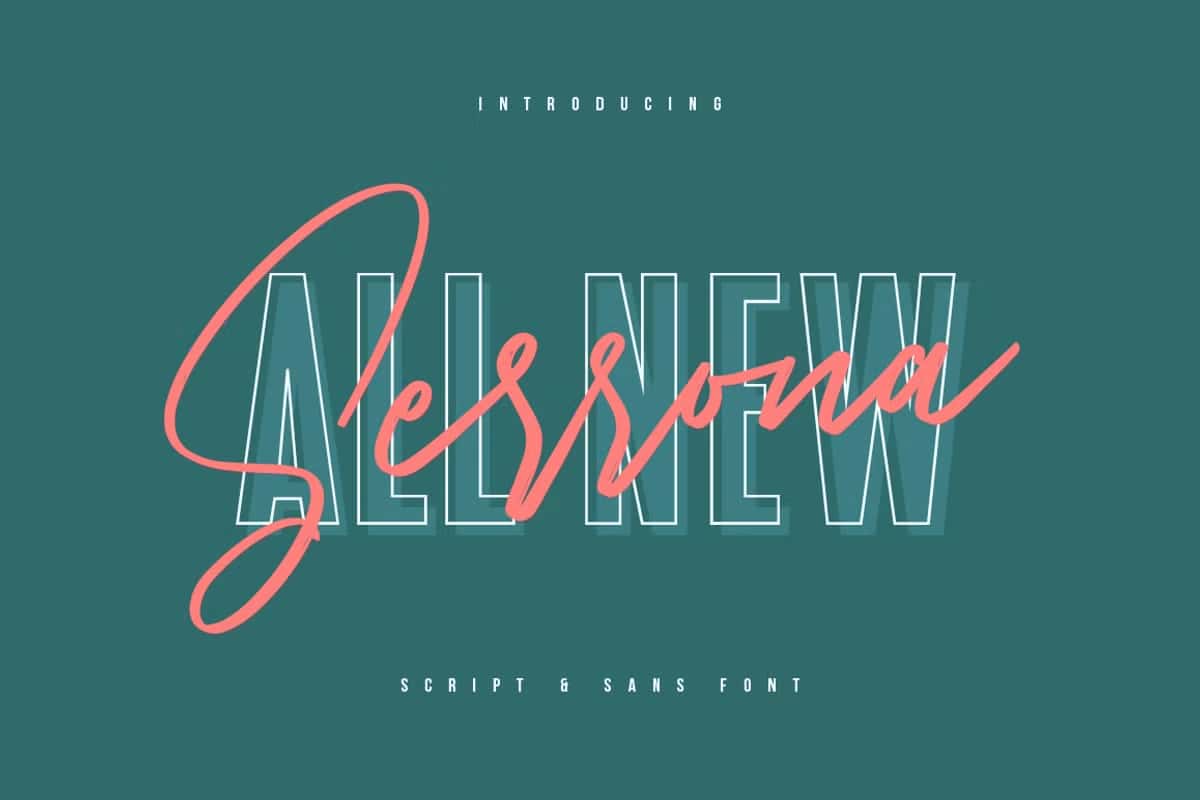
Serrona Script Font: A Handcrafted Brush Style for Professional Design
Serrona Script Font brings the perfect balance of handcrafted artistry and refined typography. Designed with the natural movement of real brush strokes, this font delivers a signature look that adds authenticity and style to any creative project. If you want to upgrade your visual communication with a handwritten touch, Serrona Script offers exactly what you need.
Every letter in Serrona Script is drawn with precision and intention, capturing the organic rhythm of hand lettering. This characteristic makes the font suitable for designers, entrepreneurs, branding specialists, and anyone looking to create designs with a unique personality. Serrona Script enhances design projects with elegance and a modern handwritten expression that instantly attracts attention.
Why Choose Serrona Script?
Serrona Script Font stands out because it provides a natural and flowing handwritten style that looks genuine rather than digitally created. Its brush texture and smooth curves make it an excellent choice for both digital and printed designs. Whether you work in branding, advertising, or content creation, this font gives your work a polished yet artistic presentation.
Unlike simple handwritten fonts, Serrona Script carries a bold visual identity. Its detailed strokes enhance its legibility while preserving a personalized handwritten emotion. This combination ensures your message remains clear while still expressing creativity, confidence, and uniqueness.
Ideal Use Cases for Serrona Script
Serrona Script is versatile enough to apply across various design industries. Use this font to elevate:
- Signature logos and personal branding
- Stationery and invitation design
- Business cards and identity kits
- Magazine and book cover typography
- Website headers and digital banners
- Packaging and product labeling
- T-shirt and apparel design
- Typography quotes and promotional layouts
Whether you design for weddings, fashion, lifestyle branding, or web content, Serrona Script enhances the message with a handcrafted and artistic feel. It works beautifully as a headline font, brand name font, or decorative text where personality matters.
Design Impact and Style Expression
Serrona Script creates a strong impression because it brings emotional warmth into visual design. The flow of the letters appears natural and expressive, making viewers feel like they are reading custom calligraphy rather than a standard typeface. This emotional effect is especially useful in storytelling design, luxury branding, and creative marketing campaigns.
Every project you create using Serrona Script becomes visually stronger. Instead of relying on generic typefaces, you position your design with a handcrafted identity that communicates originality and intention.
Bring Your Design Vision to Life
If you are searching for a unique handwritten typeface with authentic brush texture, Serrona Script offers the perfect solution. It allows you to design boldly, communicate clearly, and deliver visual results that feel personal and professionally crafted. Take your branding and creative projects to the next level with the expressive beauty of Serrona Script Font.